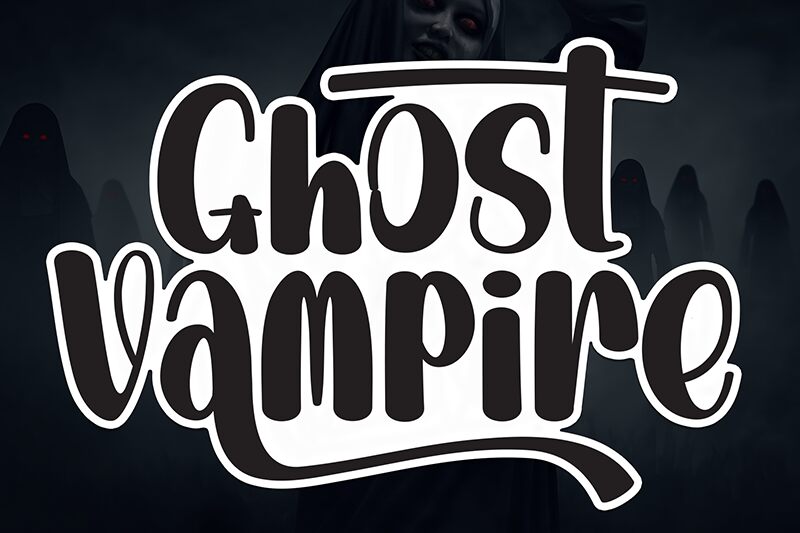
Ghost Vampire
Ghost Vampire font by Scratchones is a free brush font that recreates classic horror posters with its bold and swirly style. Decorated at the ends, it’s playful and theatrical in appearance successfully breaking free from modern typography rules. Ghost Vampire’s nostalgic atmosphere is appealing for fun projects or when aiming to add a unique flair to designs.